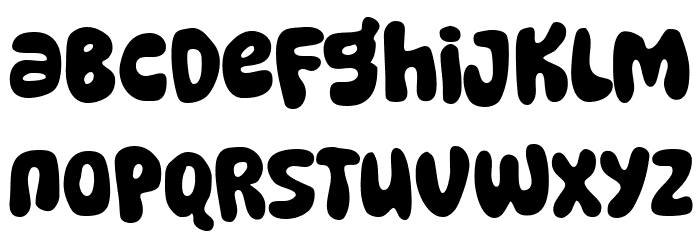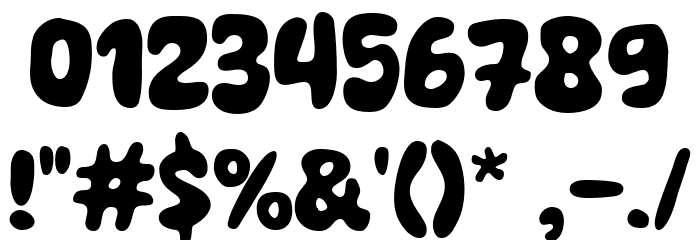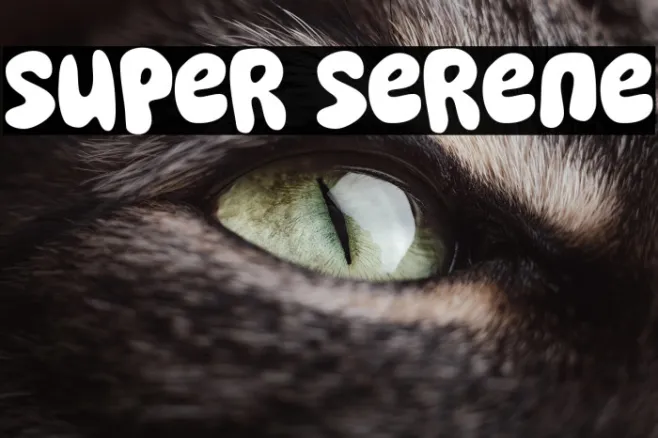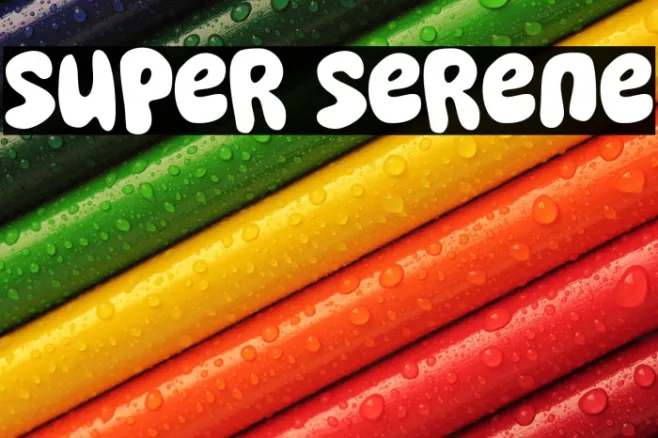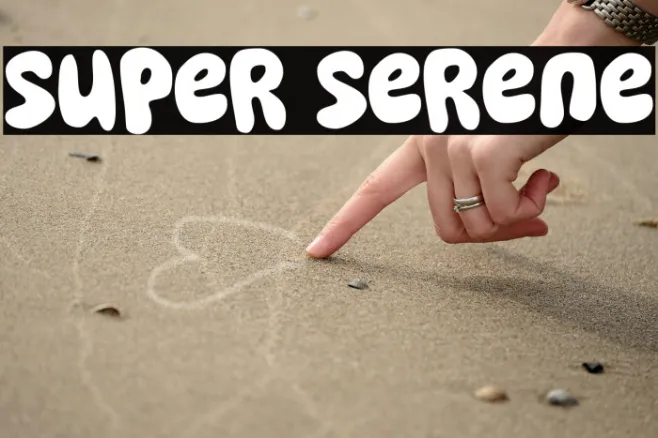
Super Serene Font
This playful and bold font features rounded, bubbly characters that convey a sense of fun and whimsy. The thick strokes and soft edges give it a friendly and approachable appearance, making it ideal for informal and creative projects. The uppercase and lowercase letters maintain a consistent style, while the numerals and special characters complement the overall design. Its unique and eye-catching style makes it stand out, perfect for capturing attention in various design contexts.
A playful, bold font with rounded, bubbly characters.
- Font: Super Serene
- Proposed Projects: Ideal for children's books, playful branding, party invitations, and creative posters.
- Overall Style: Playful